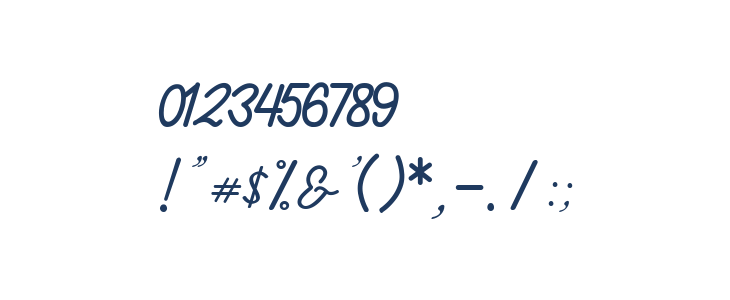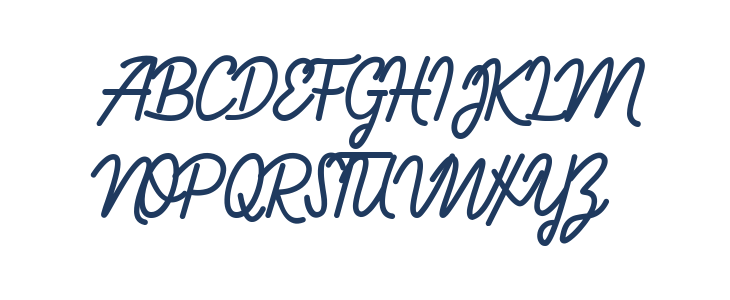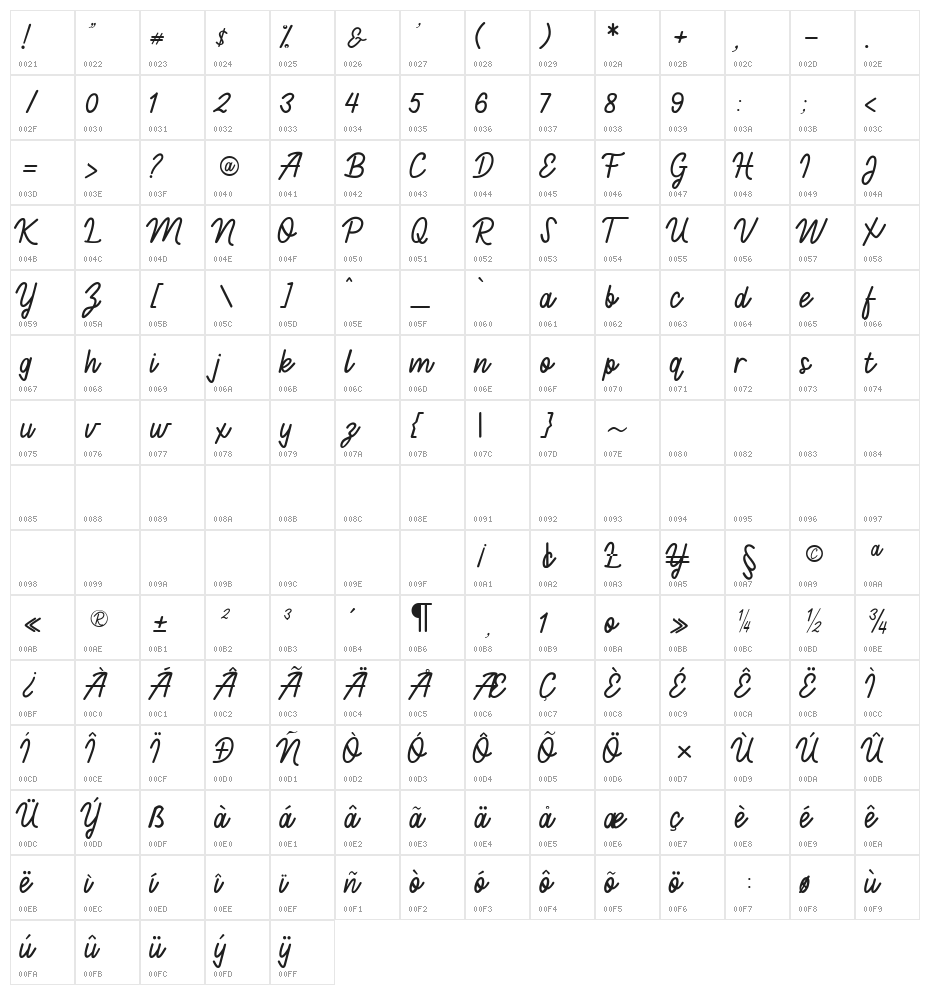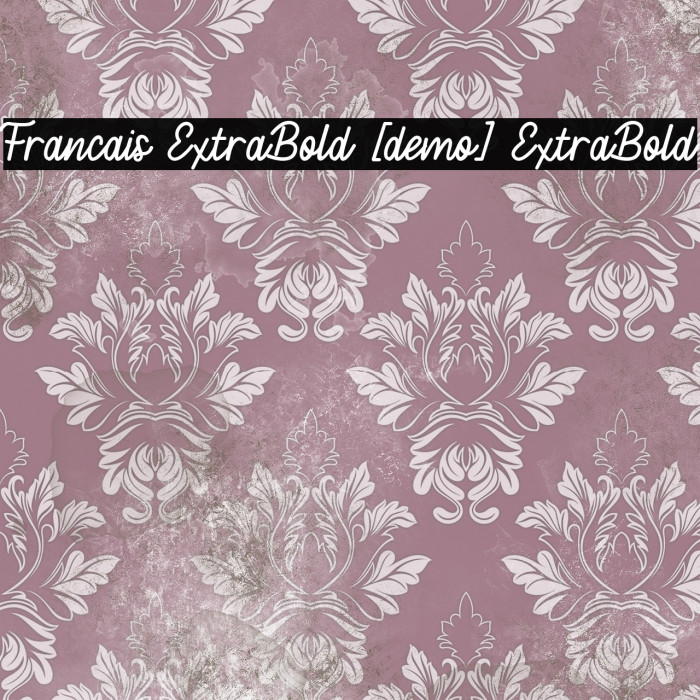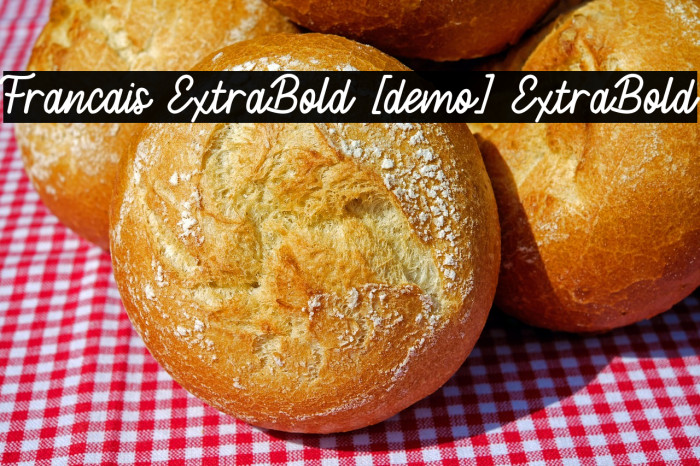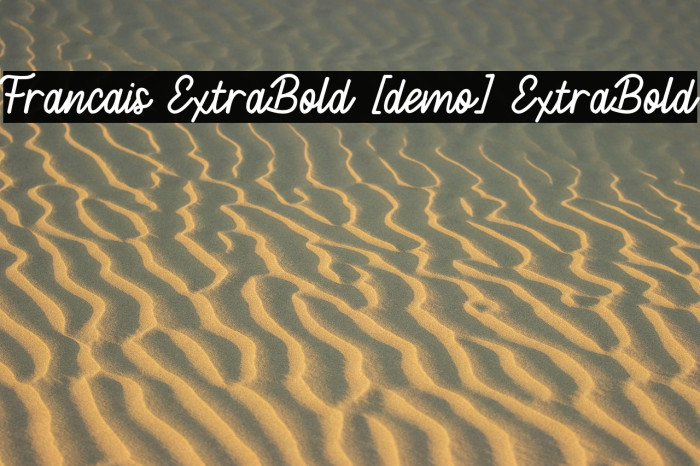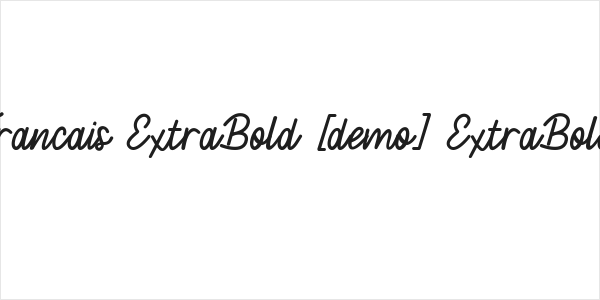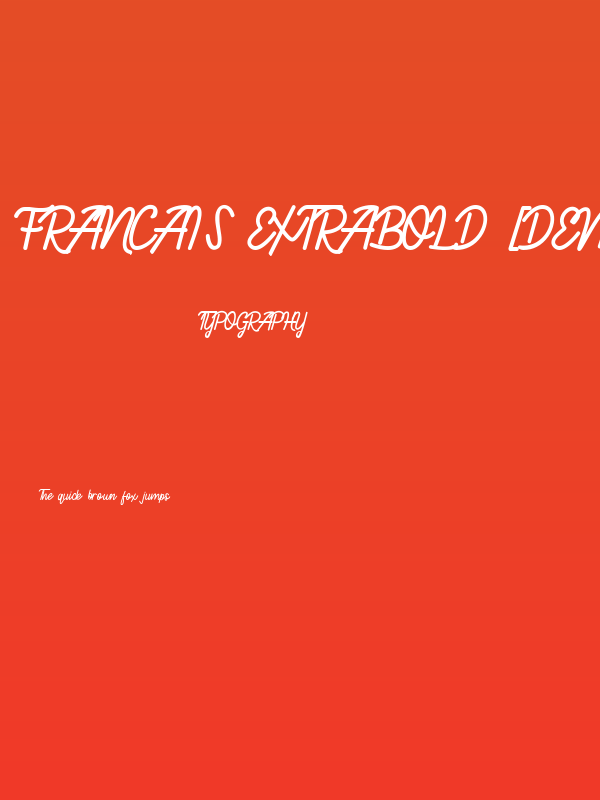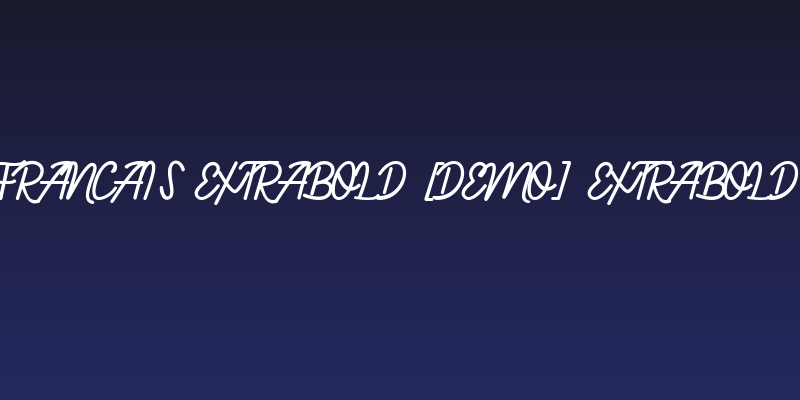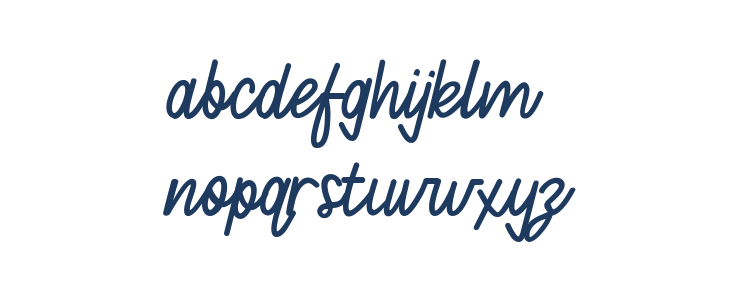
Francais ExtraBold [demo] ExtraBold Font
Francais ExtraBold [demo] ExtraBold Description
This font exudes a sense of elegance and fluidity, characterized by its script style that mimics the flow of cursive handwriting. The letters are interconnected, creating a seamless and continuous line that enhances its sophisticated appearance. The strokes are bold and confident, adding to its presence and readability. The uppercase letters are particularly striking, with sweeping curves and loops that give them a dynamic and lively feel. The lowercase letters maintain the same fluidity, with a slightly more restrained form that complements the uppercase. The numerals and special characters are consistent with the overall style, ensuring a cohesive look across all elements. This font is ideal for projects that require a touch of elegance and personality.
| Overall Style | Elegant, Decorative |
| Proposed Projects | Ideal for wedding invitations, branding, logos, and elegant packaging designs. |